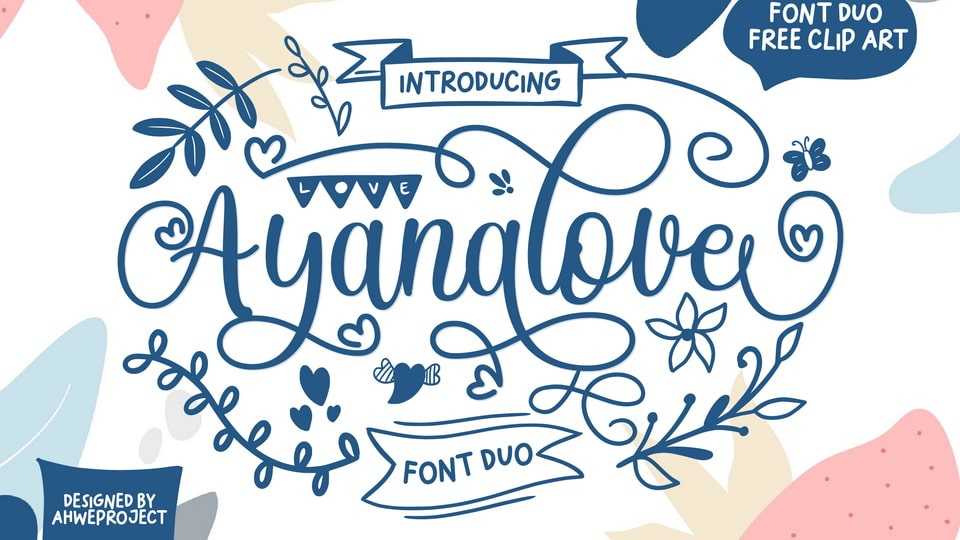
Download Ayanalove font, a sweet, all round and flexible script typeface. Warm, romantic and jolly, Ayanalove font will turn each of your project ideas into real works of art.